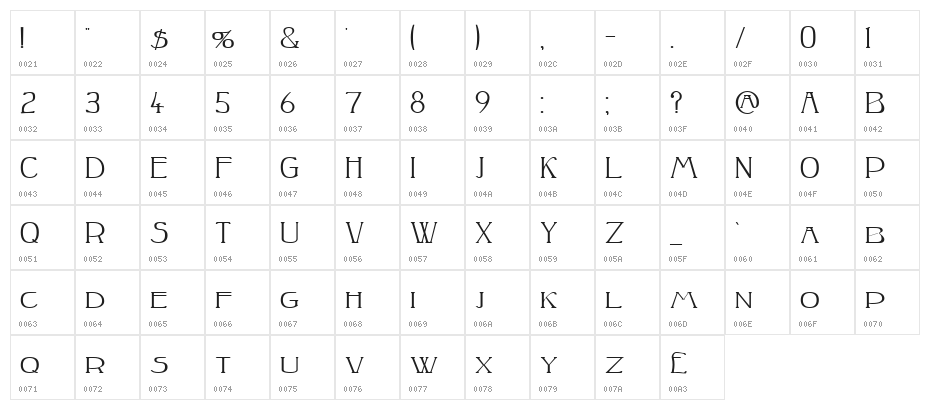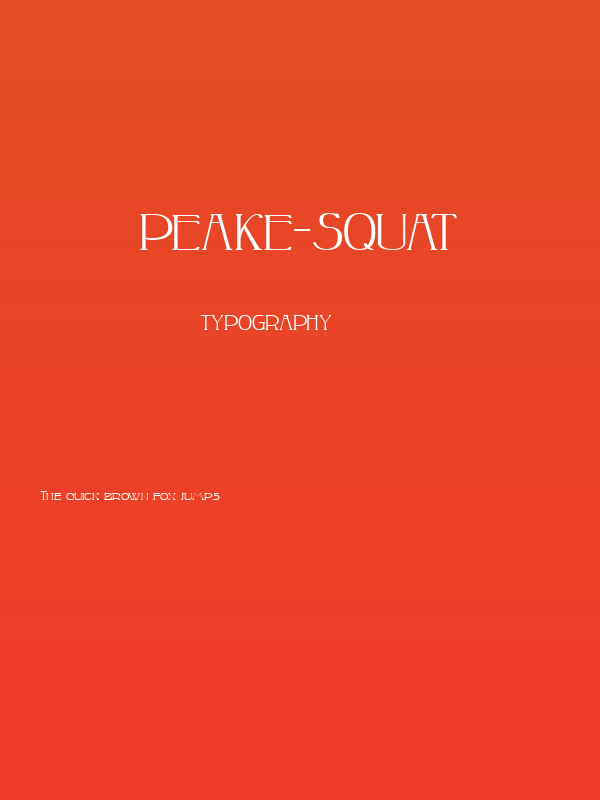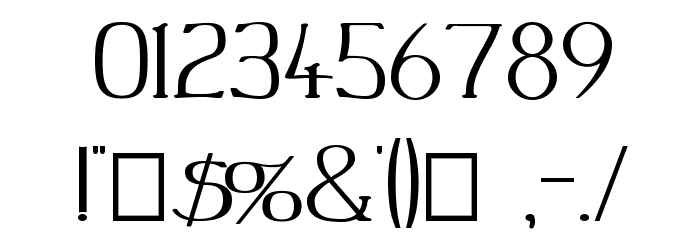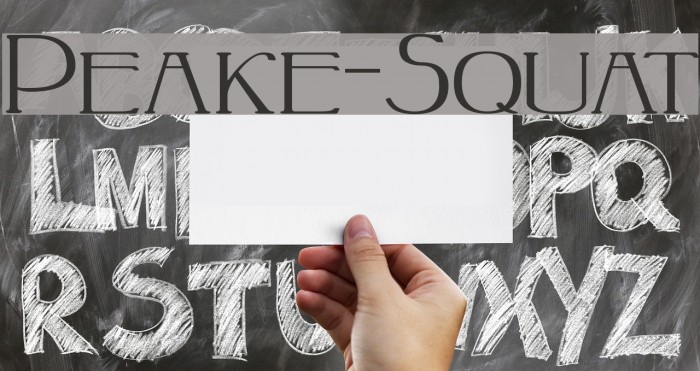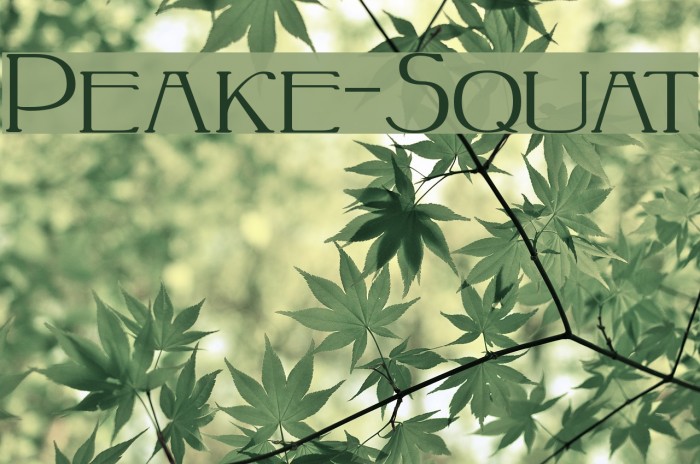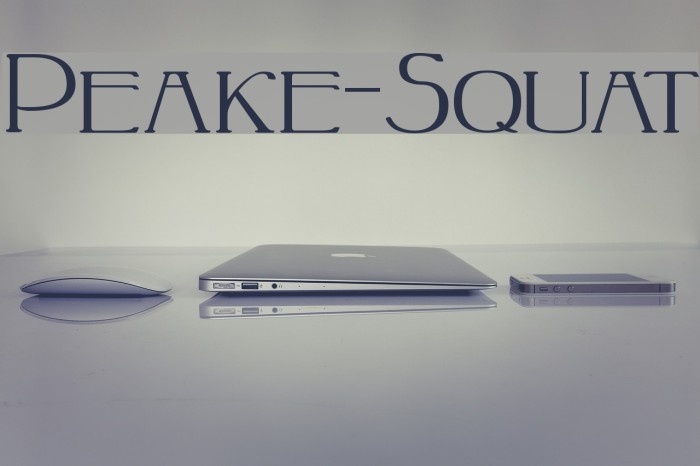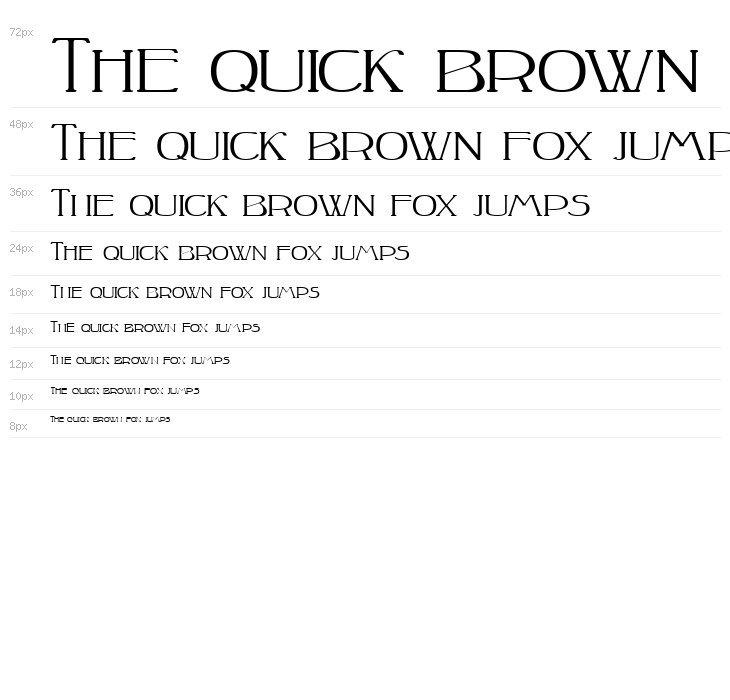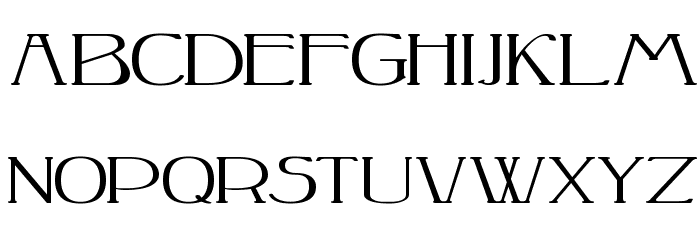
Peake-Squat Font
Peake-Squat Description
This font features a unique blend of modern and classic elements, characterized by its distinct angular serifs and slightly condensed letterforms. The uppercase letters exhibit a sophisticated elegance with a subtle flair, while the lowercase letters maintain a consistent style that complements the overall design. The numerals are clear and legible, with a slight curvature that adds to the font's charm. Special characters are thoughtfully designed to match the aesthetic, making this font versatile for various applications. The overall appearance is both stylish and functional, suitable for a range of creative projects.
| Proposed Projects | Ideal for branding, editorial design, and sophisticated invitations. |